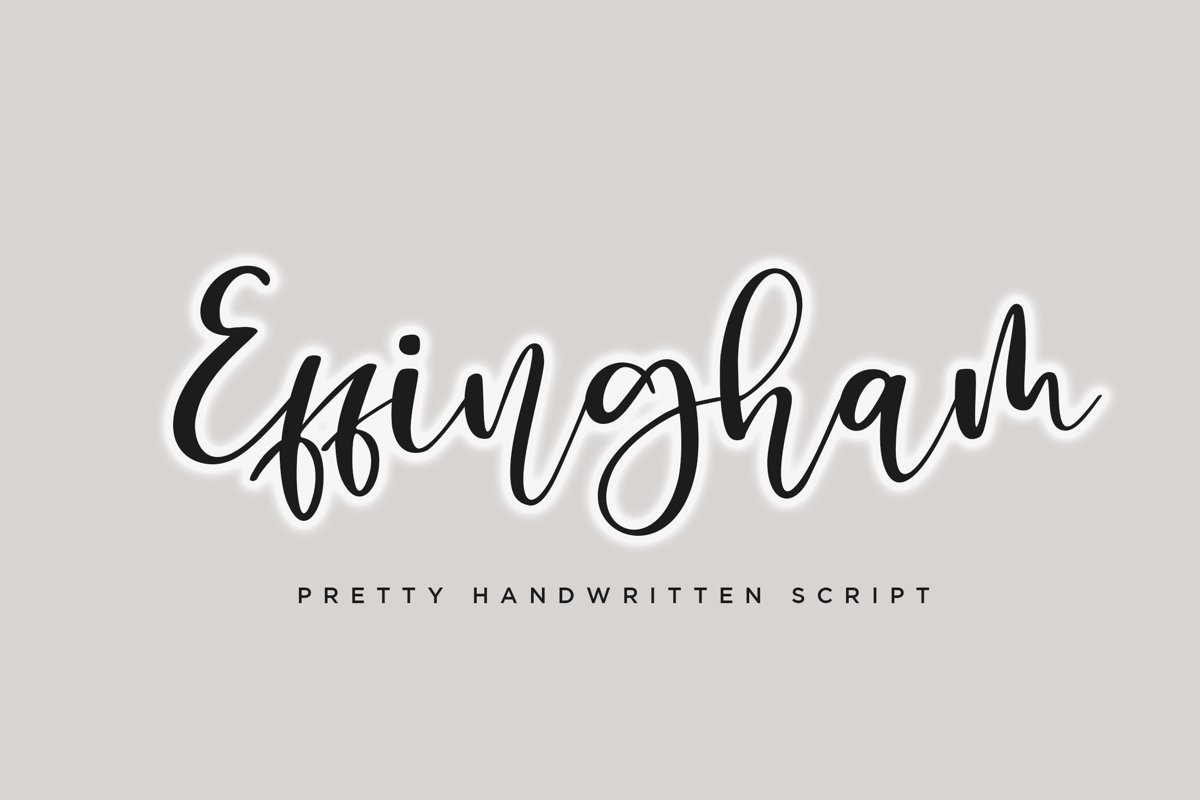
Effingham a Cute Bouncy Handwritten Font
Effingham
Effingham a Cute Bouncy Handwritten Font
Introducing the bouncy handwritten "Effingham" Script Font! If you are needing a touch of casual modern calligraphy for your designs, this font was created for you!